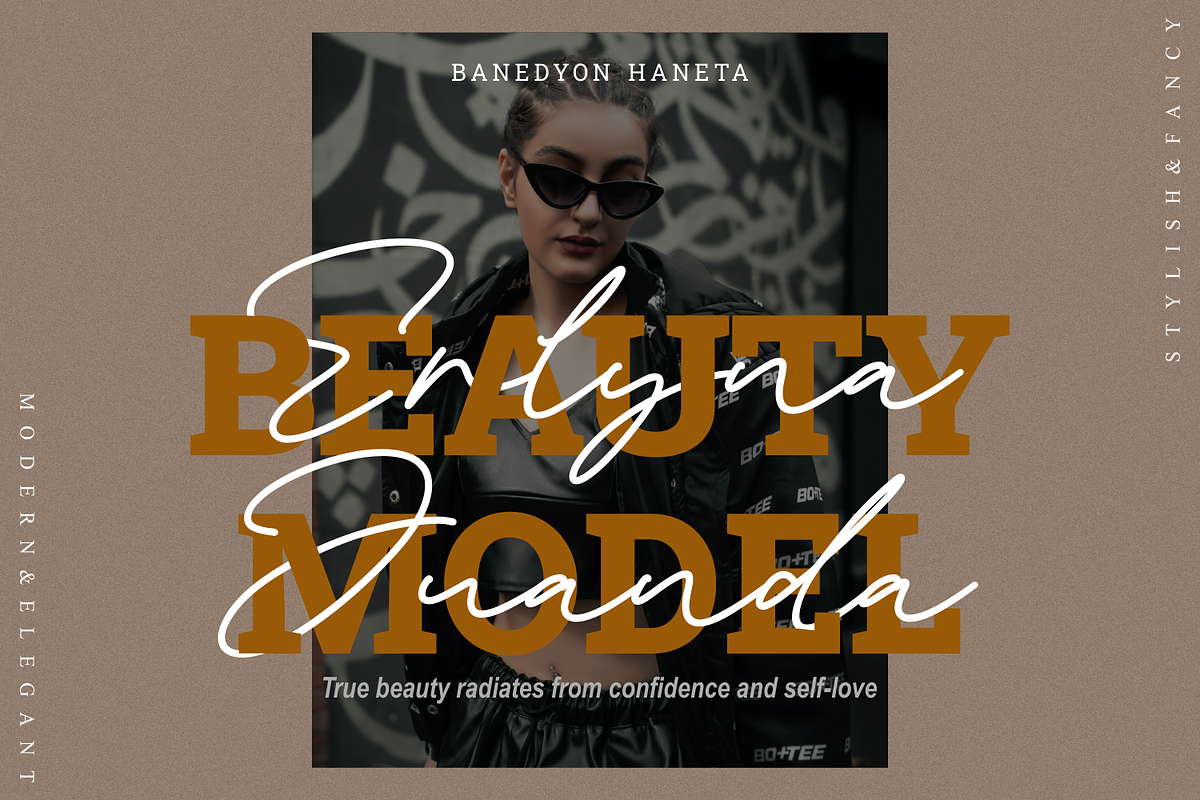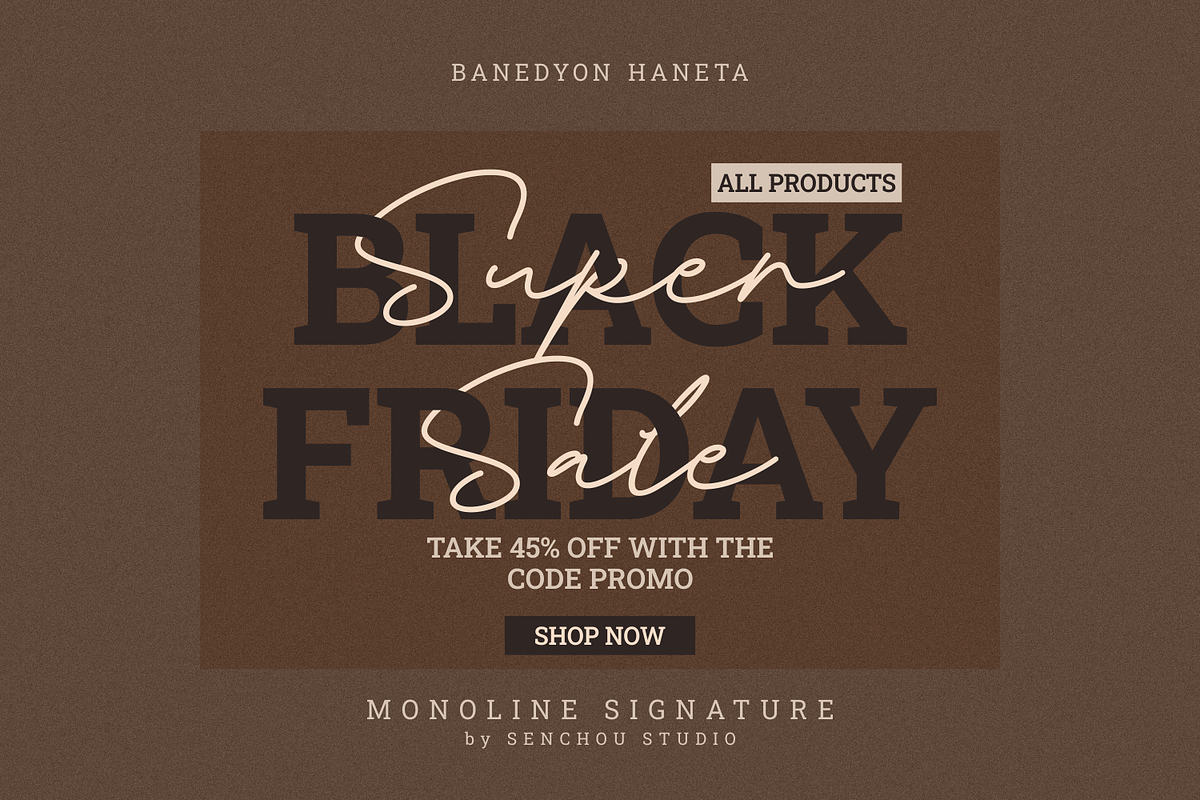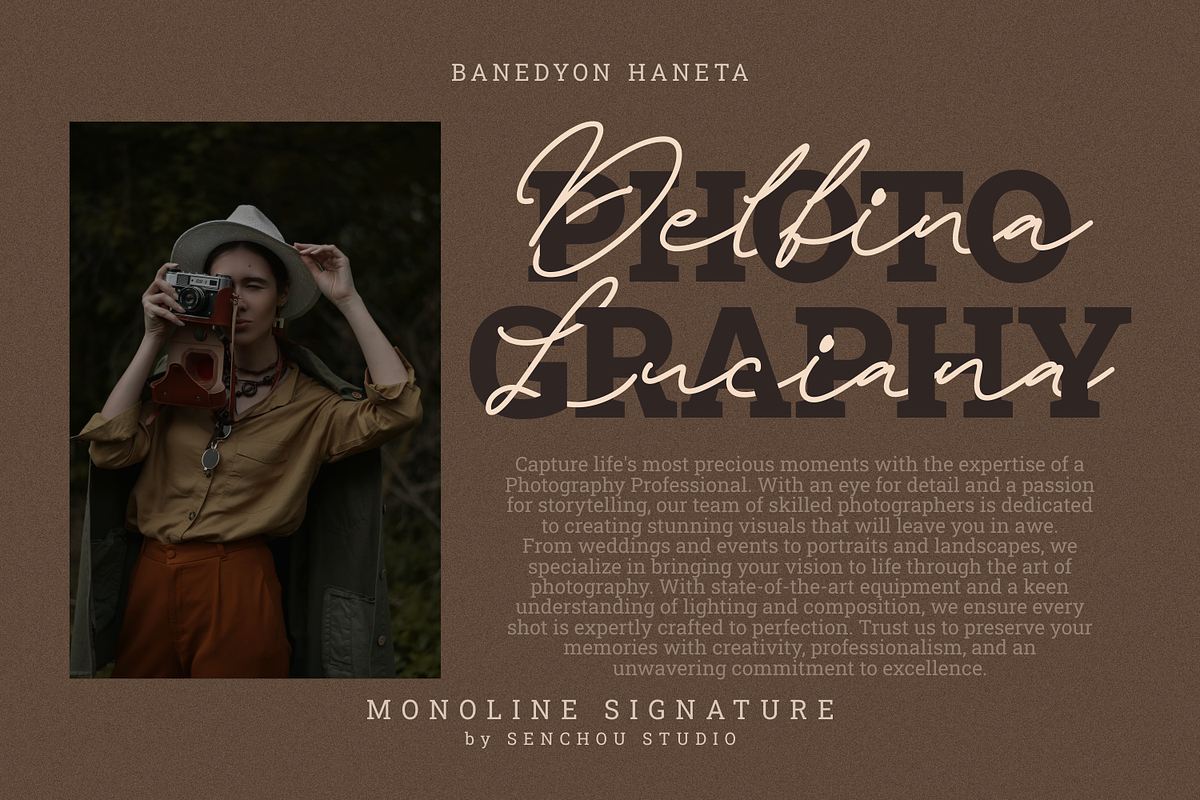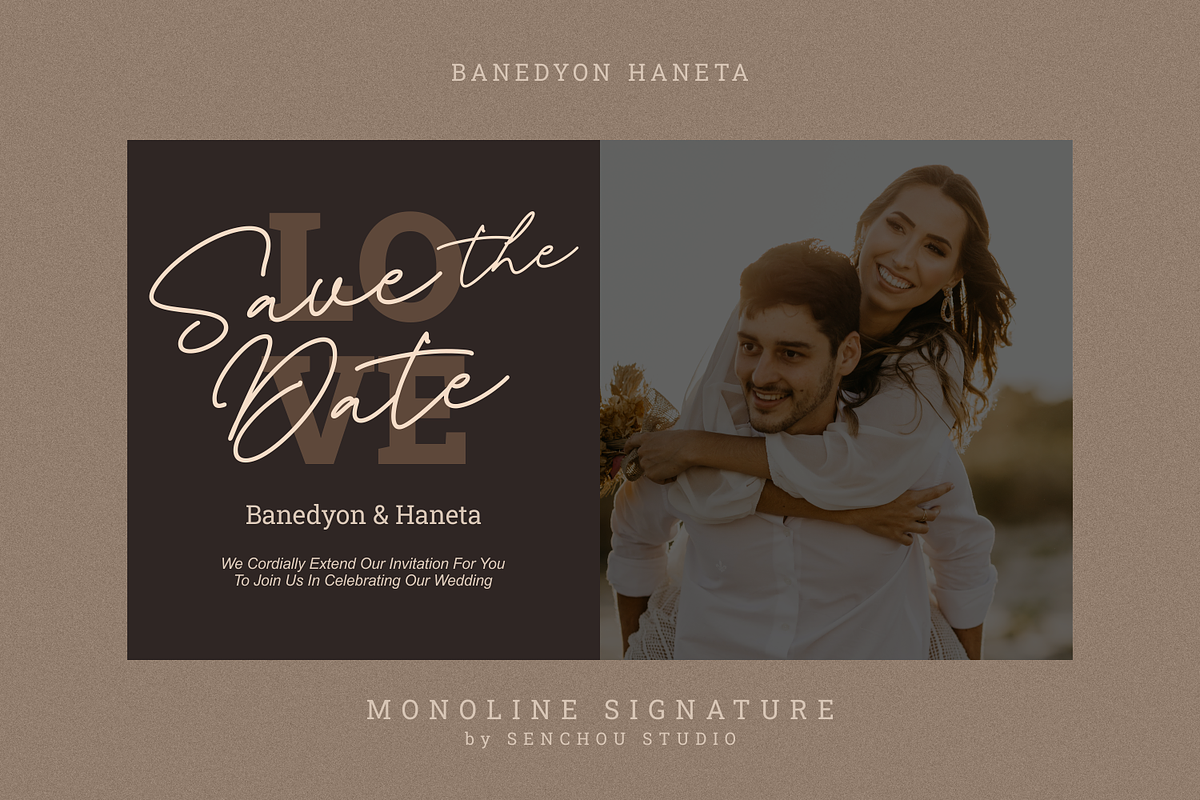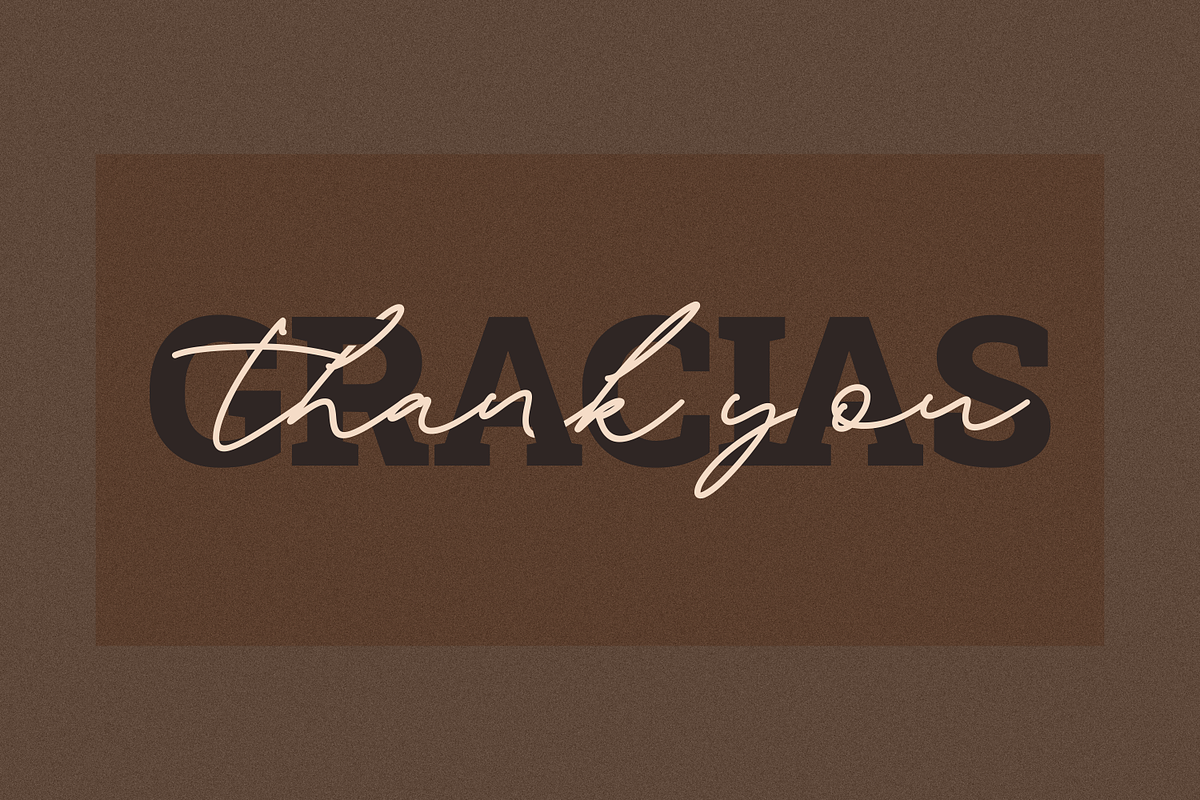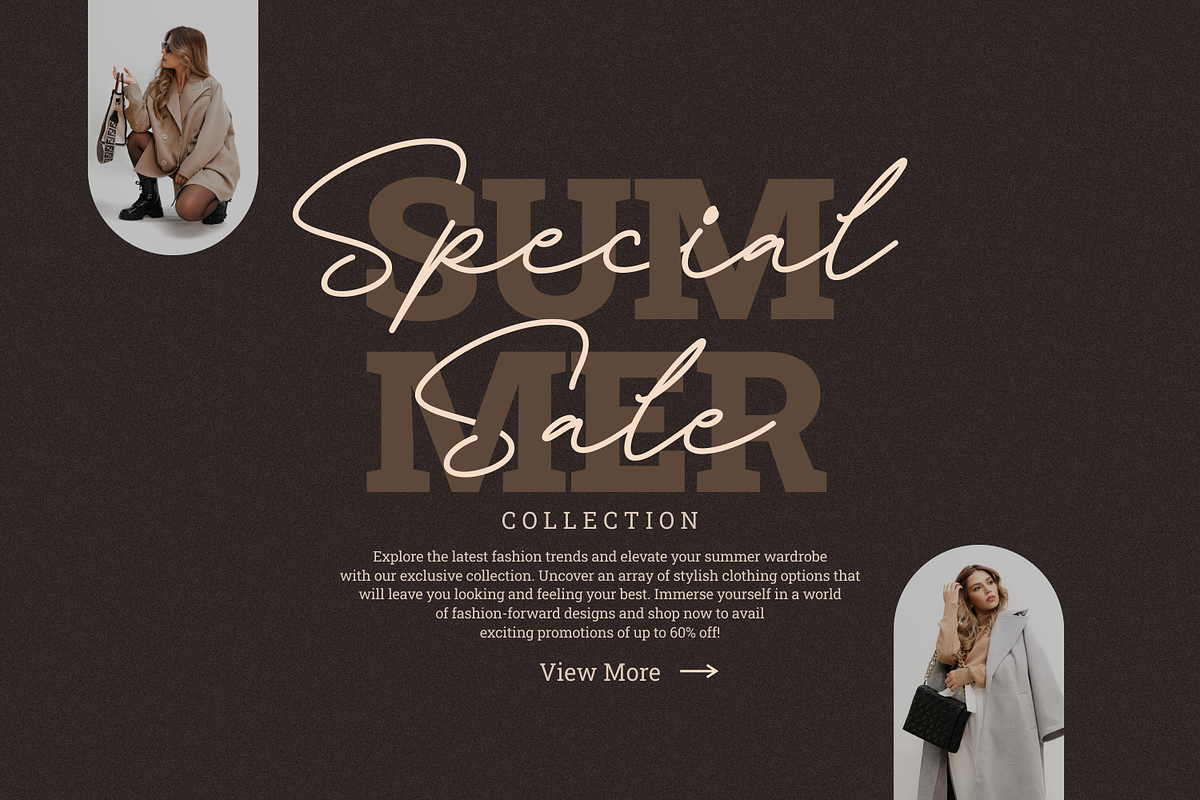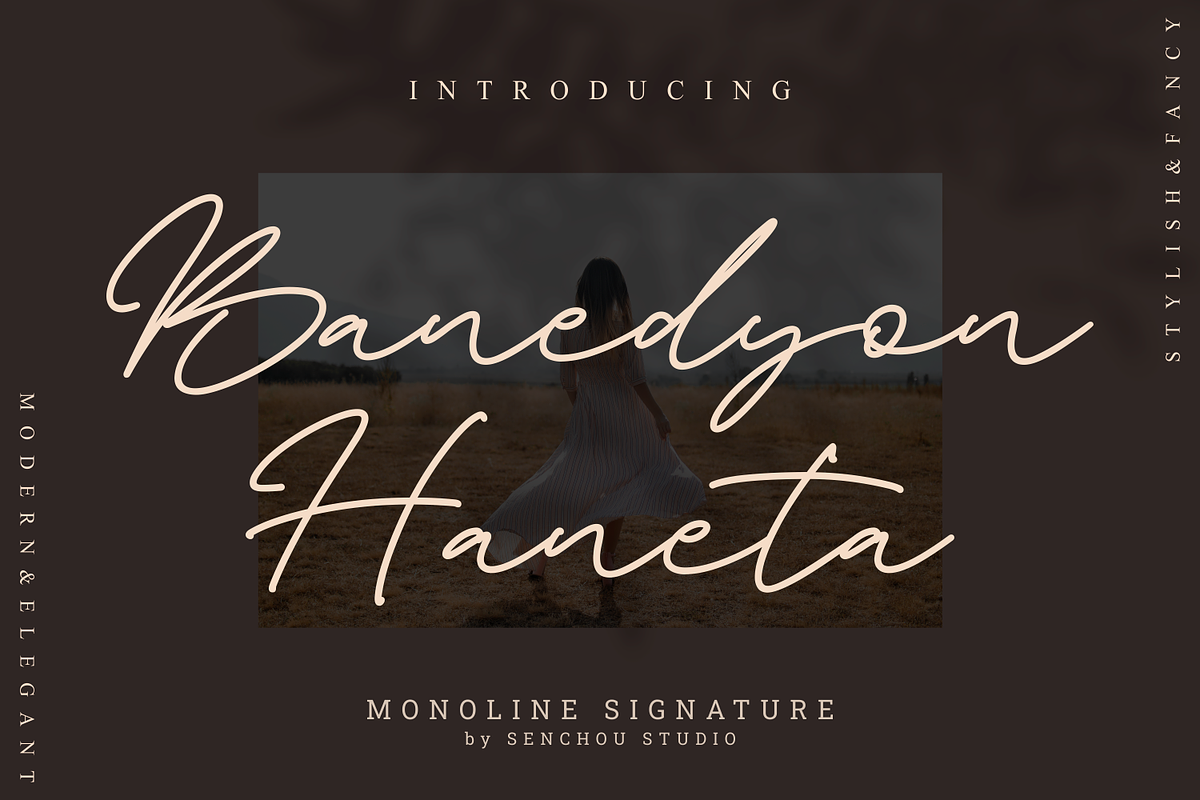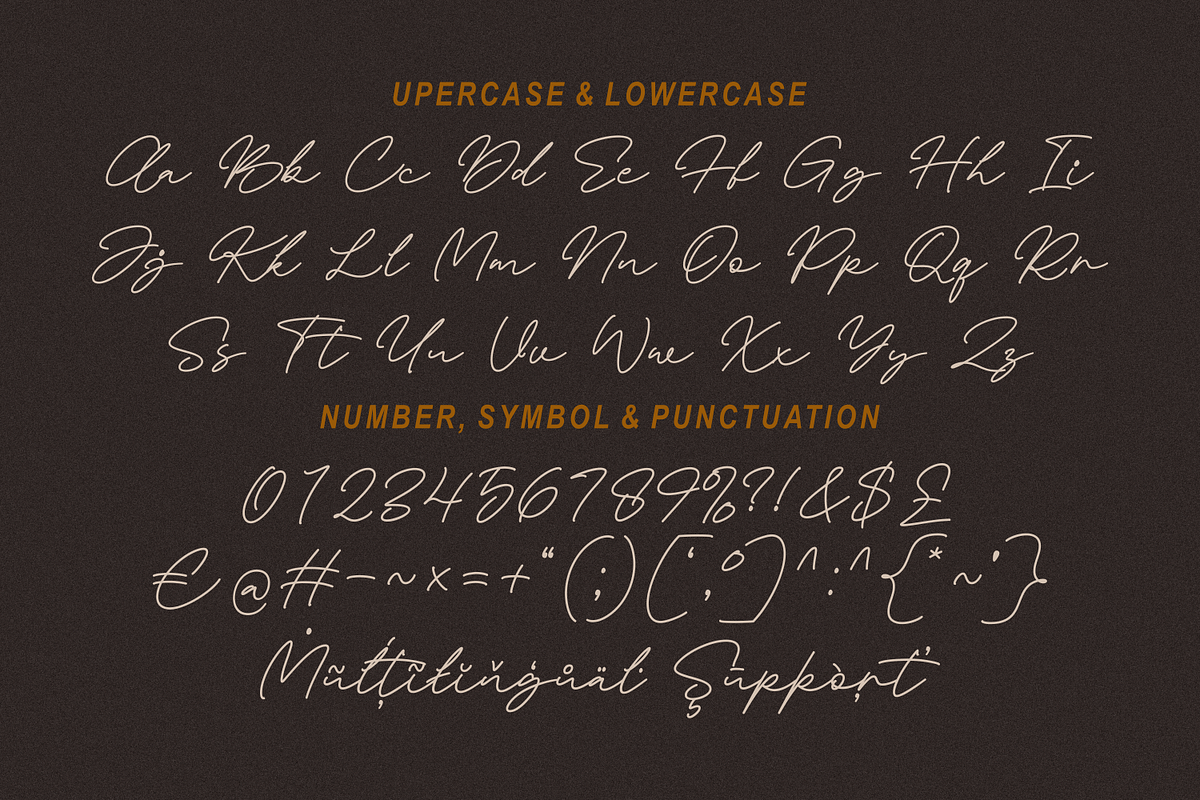
Banedyon Haneta
Font Banedyon Haneta is a captivating monoline signature font that embodies a perfect blend of style, modernity, fanciness, and elegance. With its sleek and sophisticated design, this font adds a touch of class to any project. Its smooth and consistent strokes create a seamless flow, while its unique character shapes exude a sense of individuality. Whether used in branding, invitations, logos, or other creative endeavors, Font Banedyon Haneta effortlessly elevates the visual appeal and leaves a lasting impression.